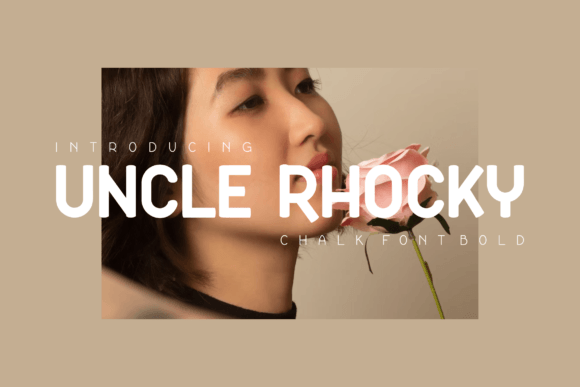
Introducing Uncle Rhocky Font, the epitome of elegance, class, and modern aesthetics. This masterpiece by ponuppo captivates hearts with its distinct, attention-grabbing style, making it the ultimate choice for fashionistas, creative designers, and anyone seeking an exceptional font.
Uncle Rhocky Font belongs to the sans serif font family, exuding a timeless charm that transcends trends. Its definitive characteristic lies in its capital letters, each meticulously crafted to emanate a refined, sophisticated aura. Whether adorning fashion labels, apparel designs, signatures, album covers, logos, branding, or magazine layouts, Uncle Rhocky Font elevates your projects to new heights of visual appeal.
With Uncle Rhocky Font, transform your social media presence into a captivating realm of visual artistry. Its allure extends beyond traditional mediums, captivating audiences in the digital sphere. From eye-catching advertisements to engaging social media posts, this font commands attention, ensuring your messages resonate with impact.
Immerse yourself in the versatility of Uncle Rhocky Font. Its adaptability knows no bounds, seamlessly complementing diverse design projects. Whether you envision sleek invitations, captivating posters, or dynamic website headers, this font seamlessly adapts to your creative vision. The possibilities are infinite, encouraging you to unleash your imagination and create visually stunning masterpieces.
Experience the allure of Uncle Rhocky Font today and witness the transformation of your creative endeavors. Discover a world of elegance, class, and captivating aesthetics that will leave an indelible mark on your audience. Embark on this journey of visual excellence and elevate your designs to new heights of sophistication.